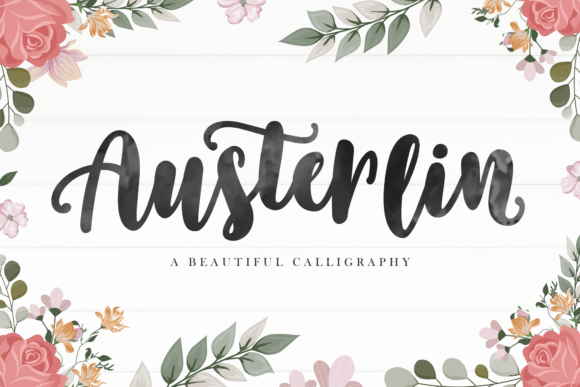
Austerlin Font: A Charming Script Font to Elevate Your Creative Projects
Austerlin font is a beautiful script font that has gained popularity among designers and creative enthusiasts due to its charming and playful characters. This lovely font is designed to add a touch of elegance and sophistication to any creative project, making it stand out from the rest. In this article, we will explore the features and benefits of Austerlin font, and how it can be used to take your creative ideas to the next level.
What is Austerlin Font?
Austerlin font is a script font that features charming, playful characters that seem to dance along the baseline. The font is designed to be highly legible and versatile, making it perfect for a wide range of creative projects, from wedding invitations and party decorations to branding and advertising materials. Austerlin font is a PUA (Private Use Area) encoded font, which means that it has a wide range of glyphs and swashes that can be accessed with ease.
Key Features of Austerlin Font
- Charming and Playful Characters: Austerlin font features charming and playful characters that add a touch of elegance and sophistication to any creative project.
- PUA Encoded: Austerlin font is PUA encoded, which means that it has a wide range of glyphs and swashes that can be accessed with ease.
- Highly Legible: The font is designed to be highly legible, making it perfect for use in a wide range of creative projects.
- Versatile: Austerlin font is a versatile font that can be used in a wide range of creative projects, from wedding invitations and party decorations to branding and advertising materials.
Benefits of Using Austerlin Font
Austerlin font offers a range of benefits to designers and creative enthusiasts. Some of the key benefits of using Austerlin font include:
- Adds Elegance and Sophistication: Austerlin font adds a touch of elegance and sophistication to any creative project, making it stand out from the rest.
- Highly Versatile: The font is highly versatile and can be used in a wide range of creative projects.
- Easy to Use: Austerlin font is easy to use and can be accessed with ease, thanks to its PUA encoding.
- Unique and Creative: Austerlin font is a unique and creative font that can help you to create unique and creative designs.
Creative Projects that Austerlin Font is Perfect For
Austerlin font is perfect for a wide range of creative projects, including:
- Wedding Invitations: Austerlin font is perfect for wedding invitations, adding a touch of elegance and sophistication to your wedding stationery.
- Party Decorations: The font is also perfect for party decorations, including birthday parties, baby showers, and more.
- Branding and Advertising: Austerlin font can be used in branding and advertising materials, such as logos, brochures, and flyers.
- Social Media Graphics: The font is also perfect for social media graphics, including Facebook posts, Instagram stories, and more.
Austerlin font is a charming script font that can add a touch of elegance and sophistication to any creative project. With its PUA encoding and wide range of glyphs and swashes, Austerlin font is perfect for a wide range of creative projects, from wedding invitations and party decorations to branding and advertising materials. Whether you’re a designer or a creative enthusiast, Austerlin font is a great addition to your font collection.